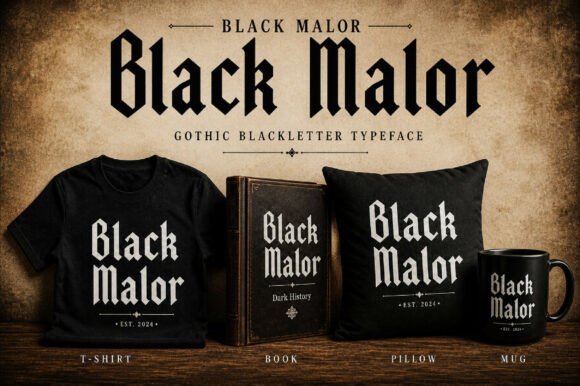
The Dark Charm of Black Malor: A Gothic Blackletter Font
I’ll never forget the design project that led me to discover Black Malor. I was working on a branding campaign for a historical reenactment group, and I needed a font that would transport their audience to the Middle Ages. The challenge was finding a typeface that was both bold and elegant, with a hint of mystery. After hours of scouring font libraries, I stumbled upon Black Malor, and it was love at first sight. ✨
An Honest Review of Black Malor
- ✅ Impactful Gothic style: Black Malor’s bold strokes and precise angles give it a commanding presence that’s perfect for making a statement.
- ✅ Readability: Despite its ornate design, Black Malor remains surprisingly readable, even at smaller sizes.
- ✅ Versatility: This font can be used for a wide range of projects, from logo creation to editorial headlines.
- ✅ Timelessness: Black Malor’s classic design ensures it won’t go out of style anytime soon.
While Black Malor is an exceptional font, it’s not without its quirks. ⚠️ Some users may find that the font’s Gothic-inspired letters can be quite ornate, which may not be suitable for very small font sizes or body text. Additionally, the font’s bold style can be overwhelming if not used thoughtfully in a design.
For example, I once used Black Malor for a poster design, and I found that the font’s bold strokes overpowered the other design elements. 🤔 To balance the design, I had to adjust the font size and add some negative space around the text.
A Practical Guide to Using Black Malor
Experiment with different alternates to add unique touches to your design. For example, you can use the stylistic alternates to create a more ornate or decorative look for headings or titles.
The Story Behind Black Malor
Black Malor was inspired by the rich, typographic heritage of Gothic and Old English lettering. Its creator, a skilled type designer, sought to craft a font that would evoke the mystery and drama of medieval times. 💡
The designer’s inspiration came from ancient manuscripts, illuminated letters, and Gothic architecture. The result is a font that feels both historical and timeless, with a unique personality that’s hard to ignore.
Q: What makes Black Malor suitable for logo creation?
A: Black Malor’s bold, Gothic-inspired design makes it an excellent choice for logos that require a strong, memorable presence. Its unique character and timeless feel ensure your logo will stand out.
Q: Can I use Black Malor for body text?
A: While Black Malor is primarily designed for display purposes, it can be used for body text in certain contexts. However, its bold style may be overwhelming for extended passages. Use it sparingly for headings or subheadings for maximum impact.
Q: Is Black Malor suitable for digital use?
A: Yes, Black Malor is optimized for both print and digital use. Its clear, bold design ensures it remains legible on various devices and screen sizes.